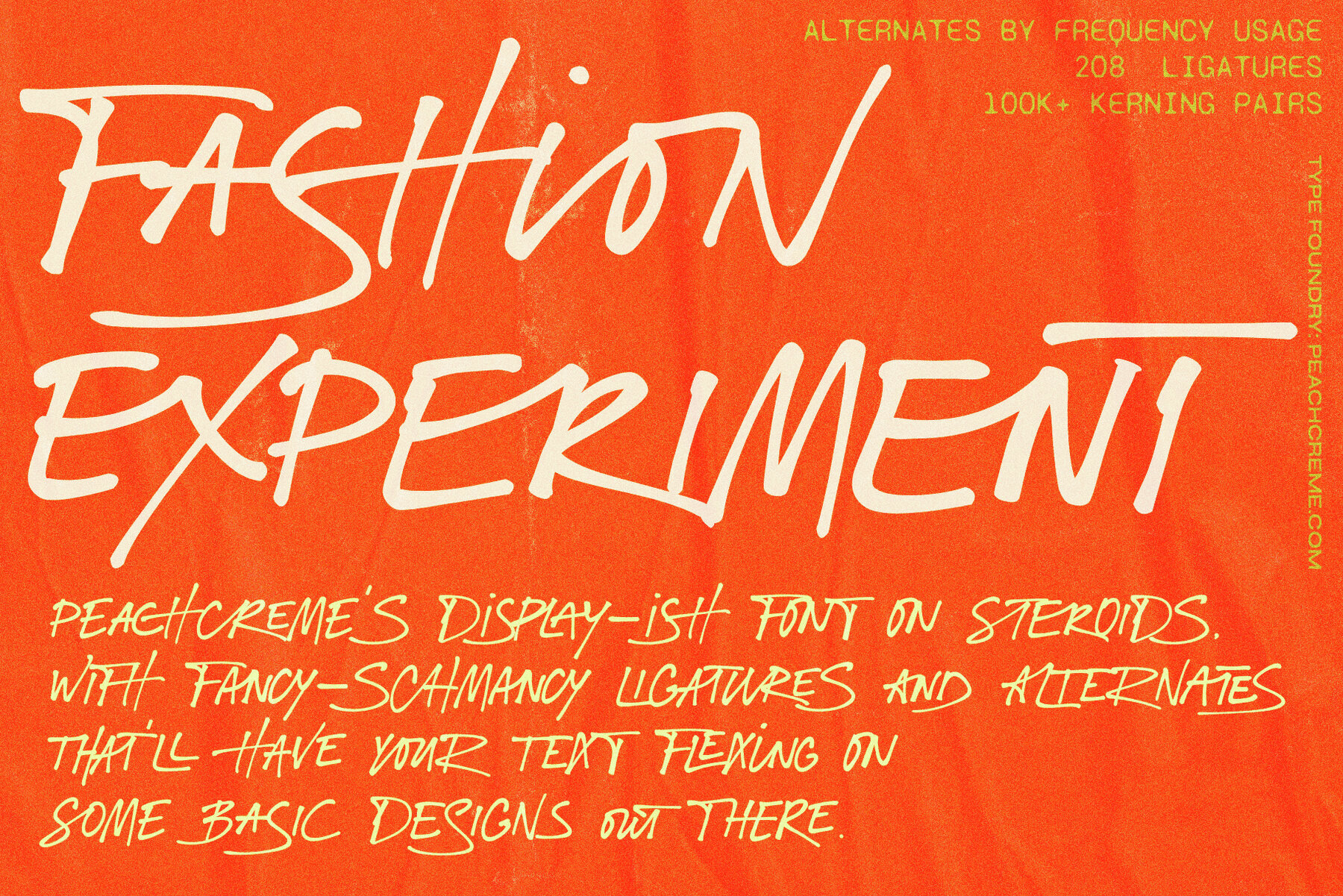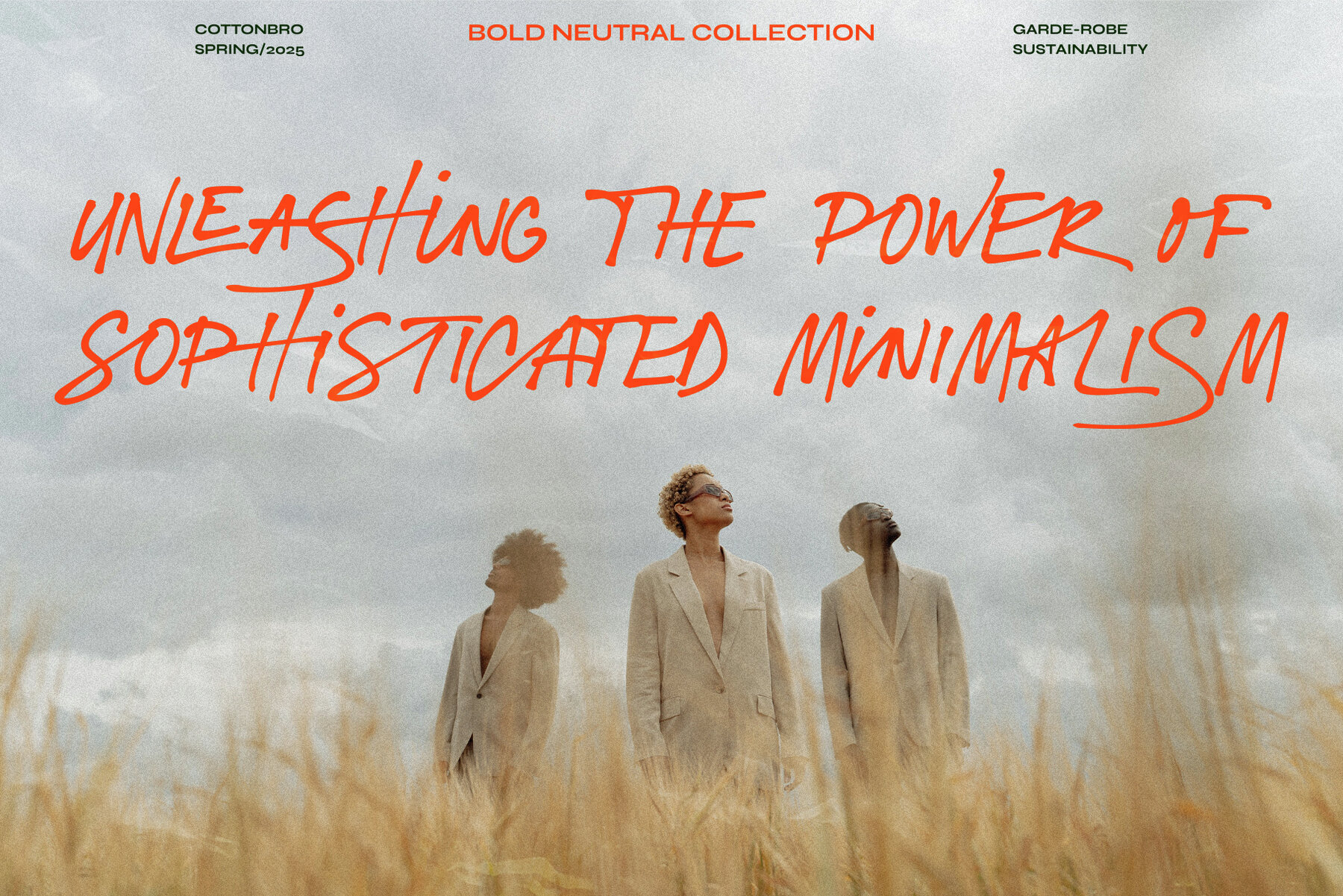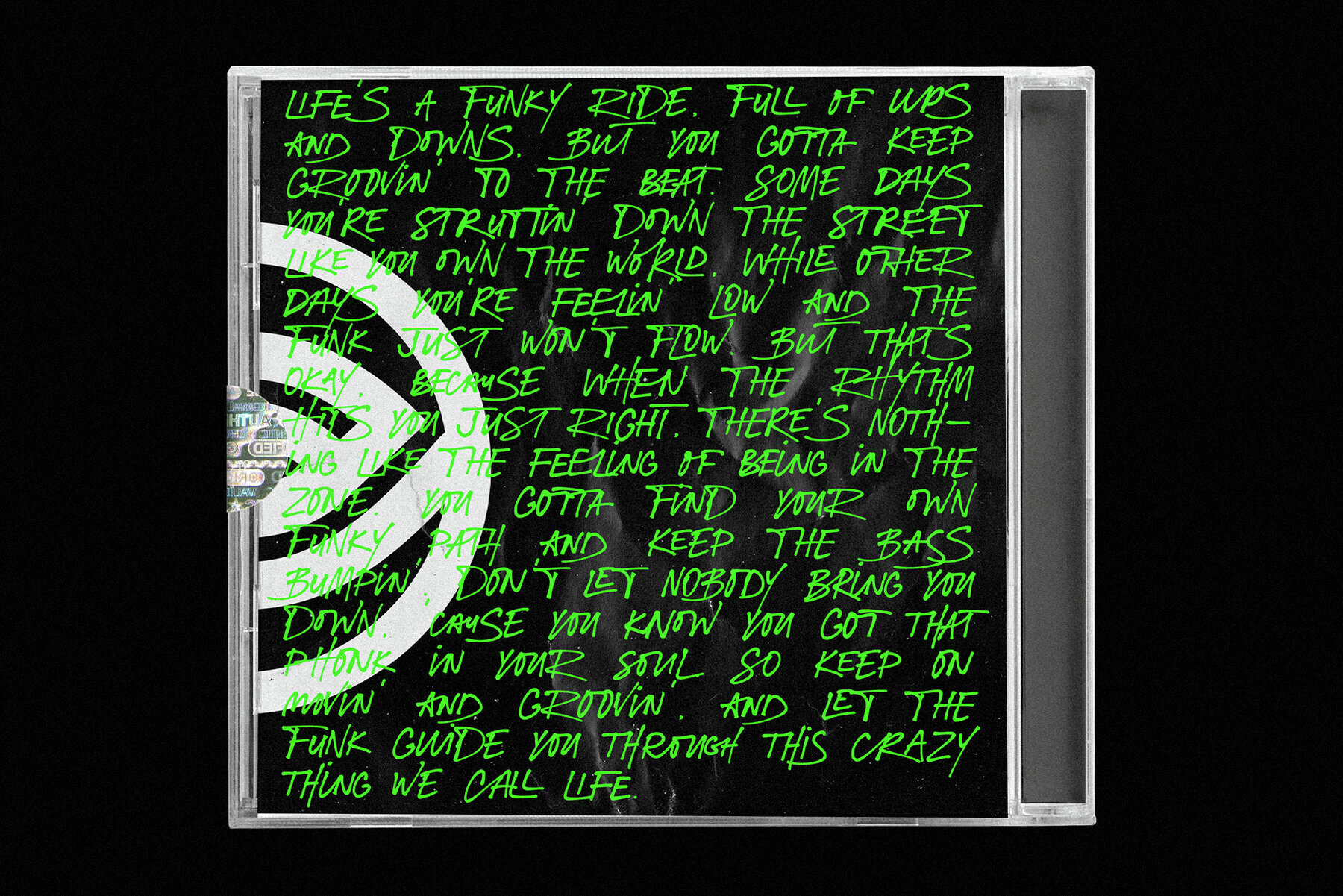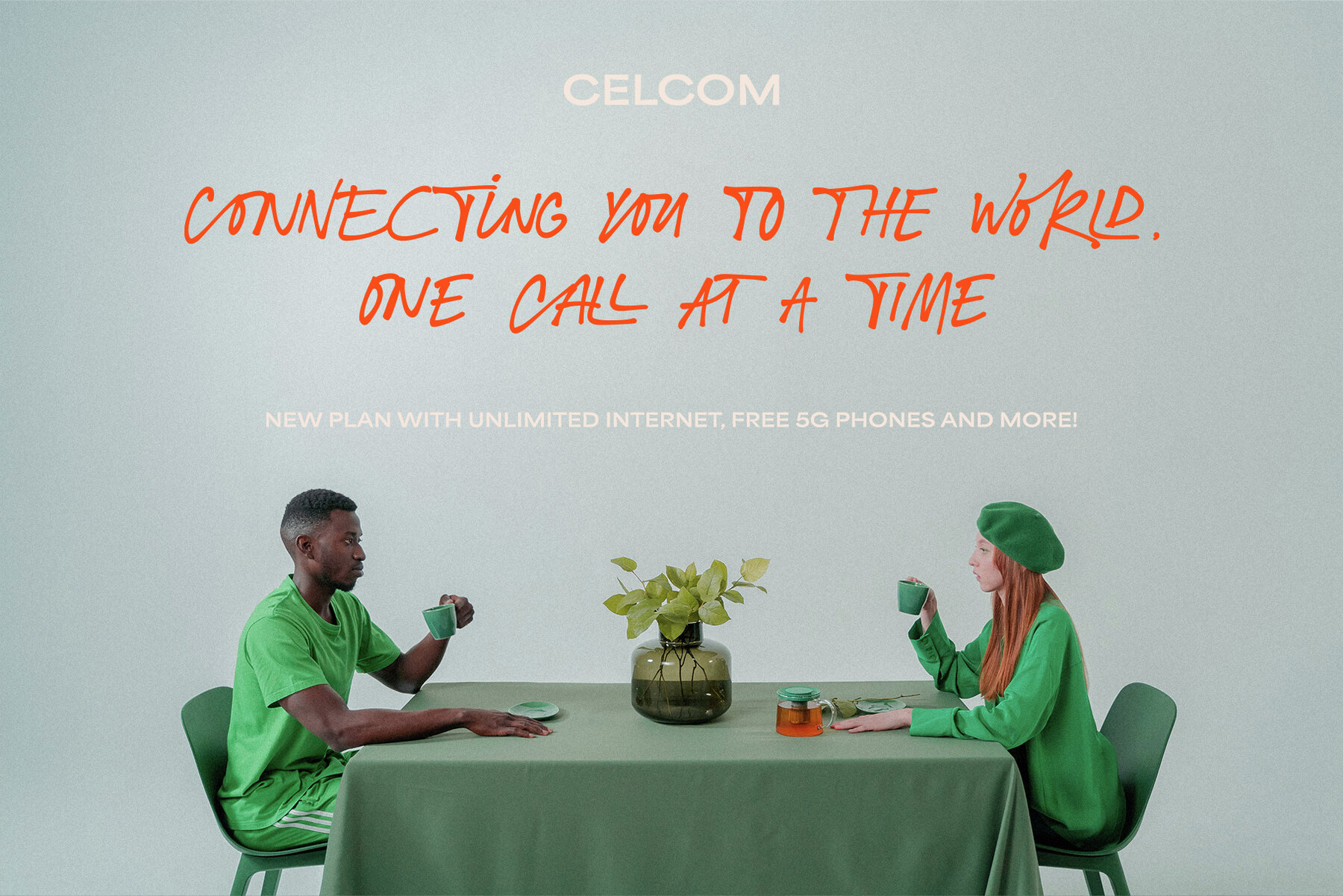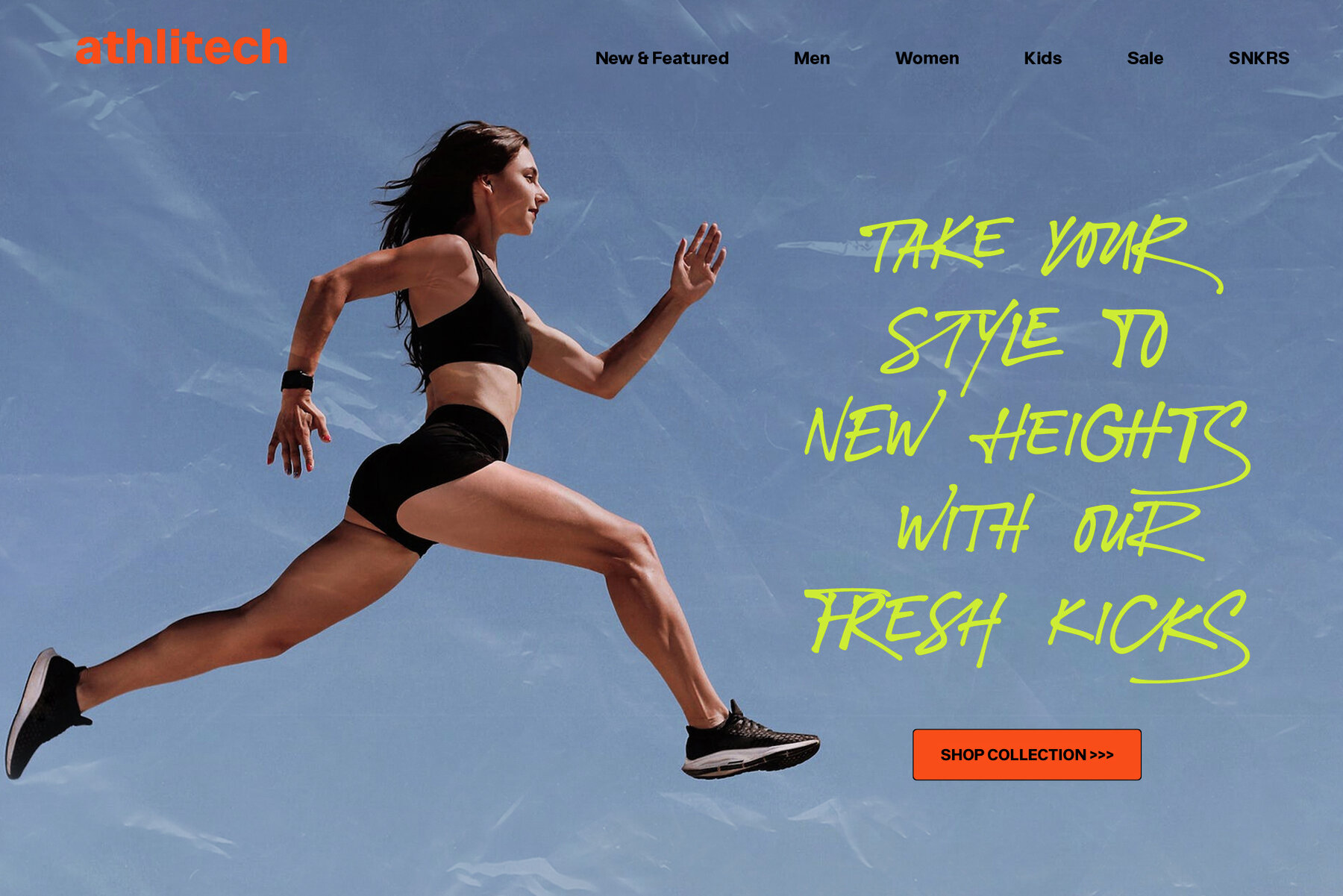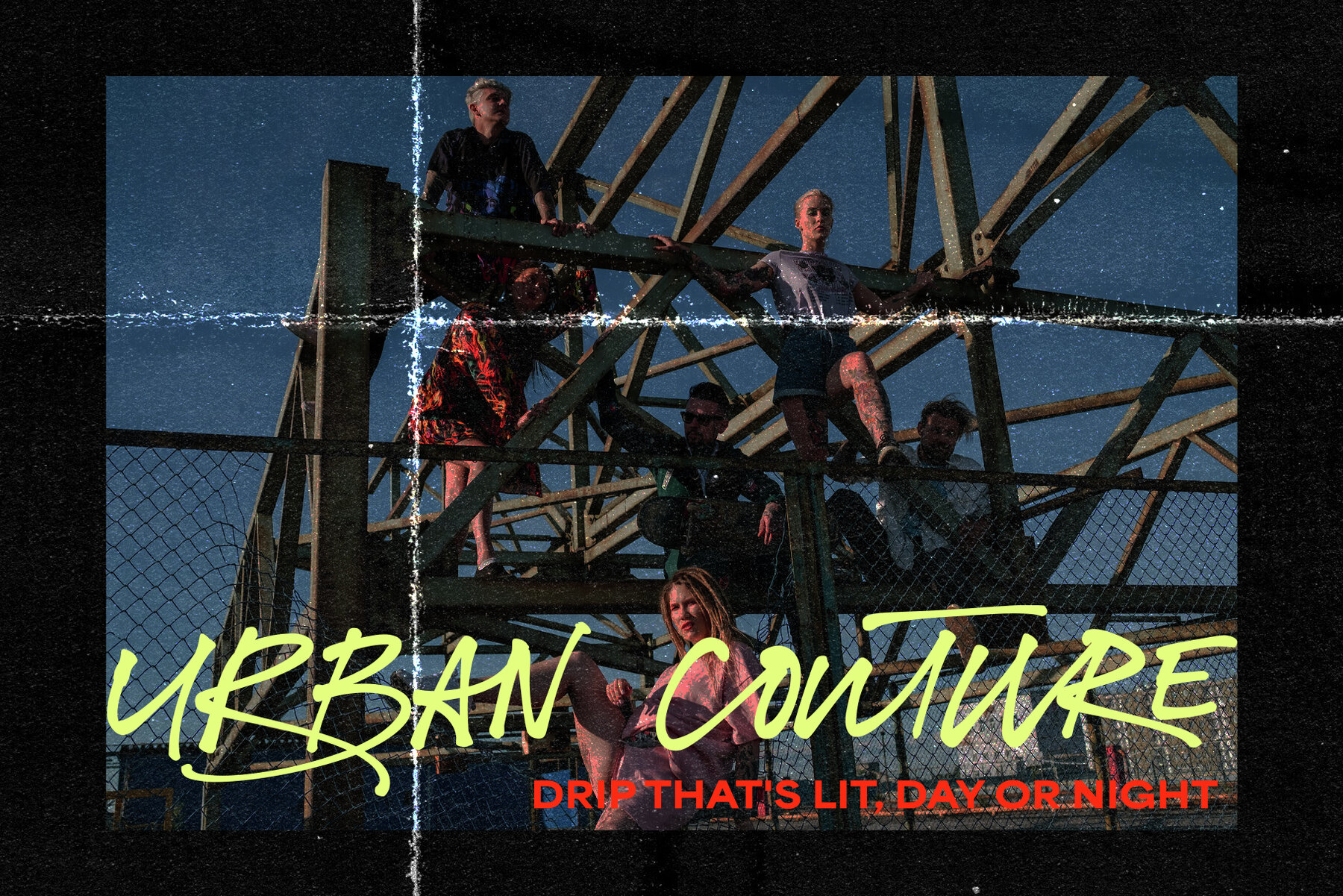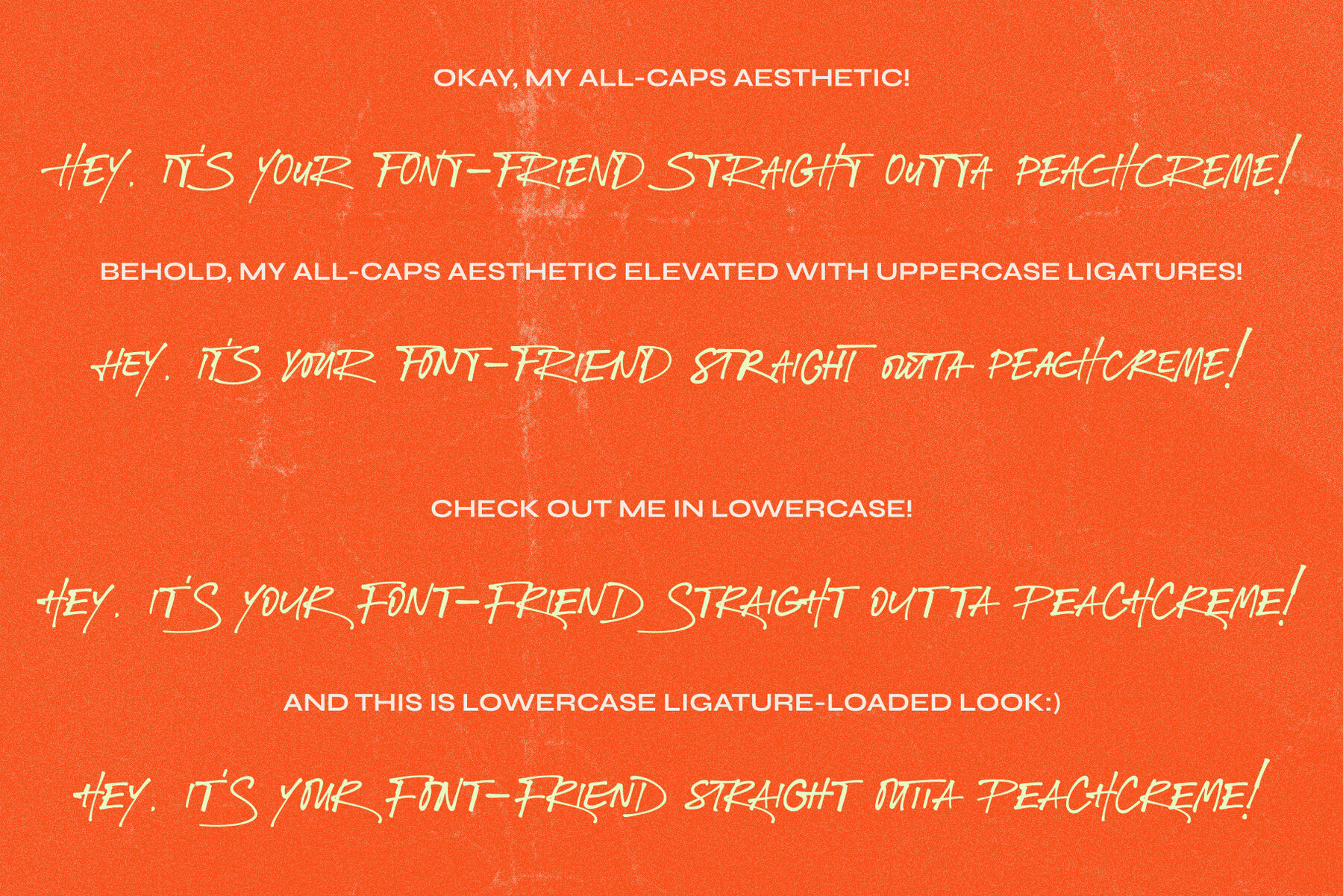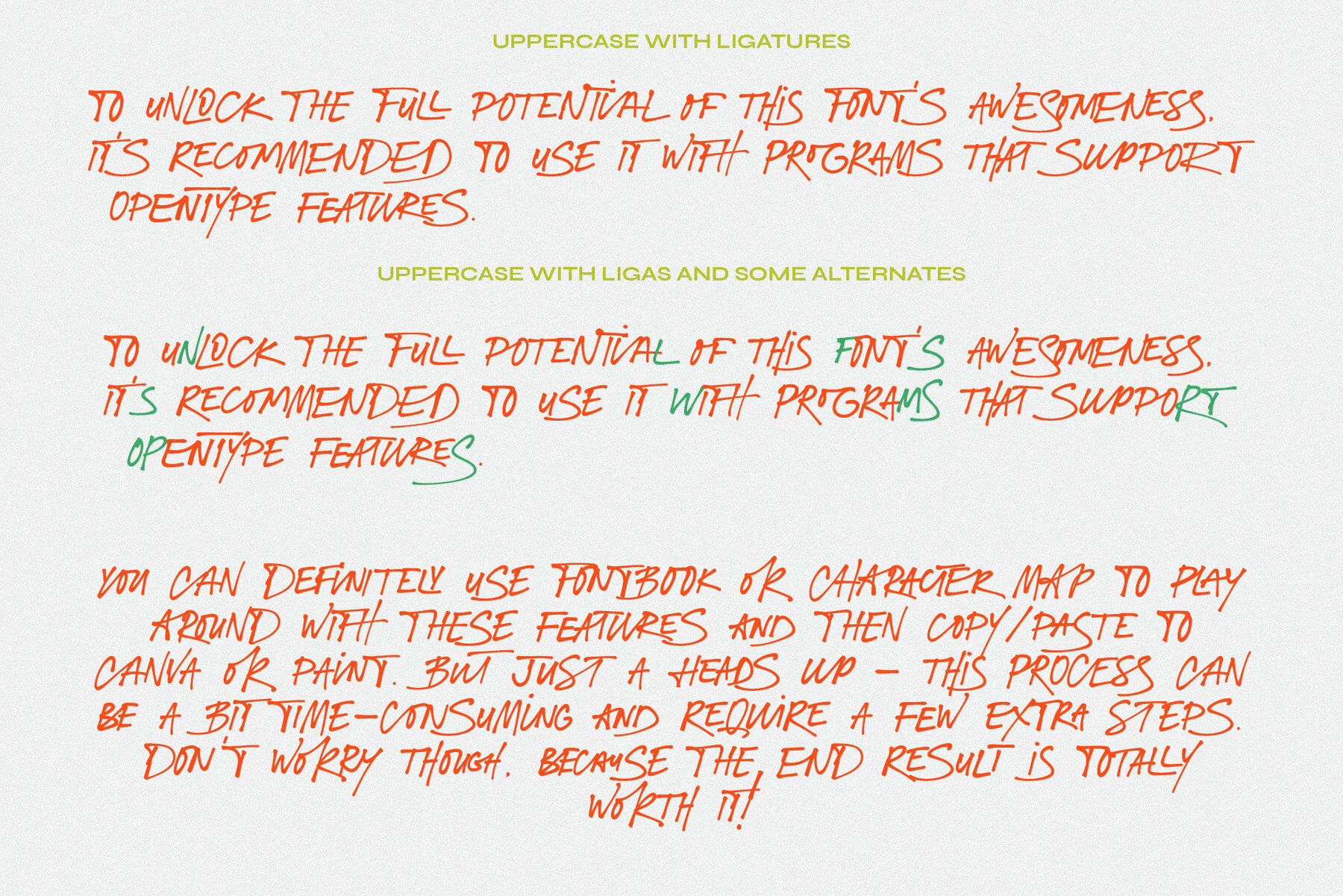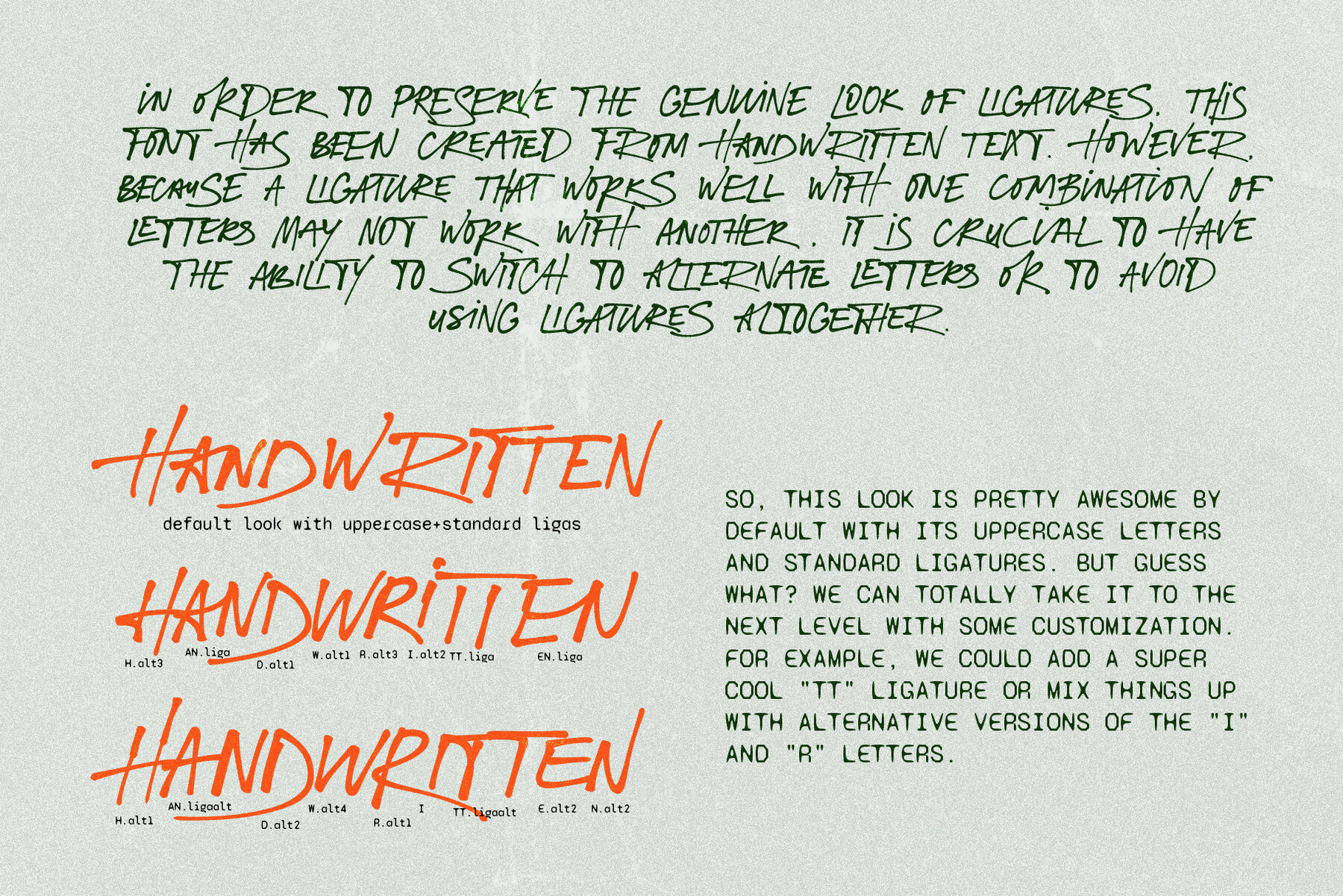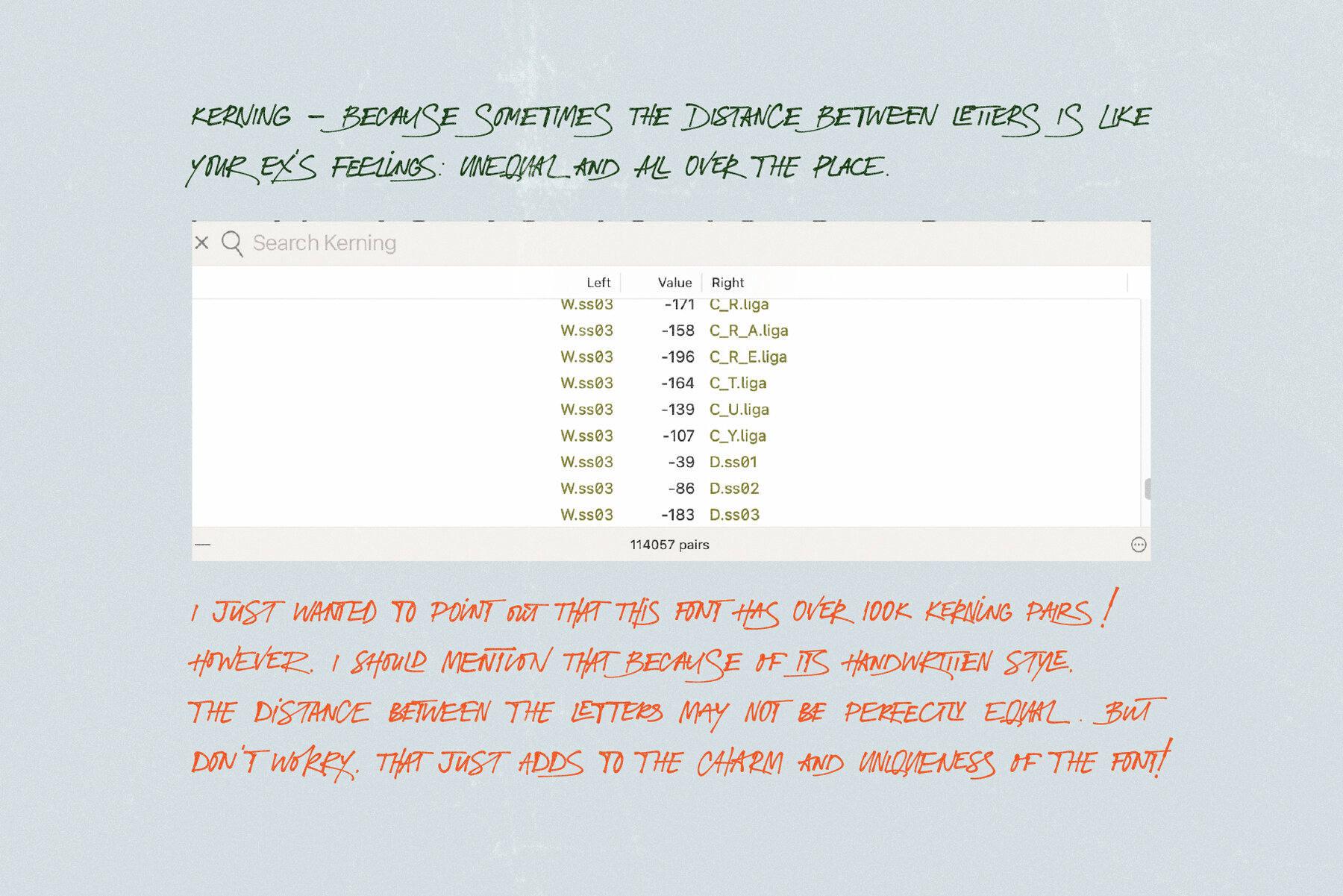
"Fashion Experiment" is an all-caps handwritten display font, featuring a funky and expressive gel pen-style that is perfect for creating impactful header text, poster designs, album covers, product designs, and merchandise. The font includes alternative letters and ligatures,which are coded for uppercase letters. The font also features more than 100k kerning pairs, ensuring optimal precision and readability. To maintain the authentic appearance of ligatures, this font was crafted from handwritten text. However, as ligatures that complement one combination of letters may not work for another, it is essential to have the option of switching to alternate letters or avoiding the use of ligatures altogether. The frequency of use for certain letters varies, resulting in some letters having more alternates than others. For example, letters such as A, E, L, M, S, and T are more commonly used than letters like X, Z, and Q, which explains the difference in alternate options. To fully access the font's features, we recommend using programs that support OpenType features. This will allow you to access glyphs directly on the same panel without copy/pasting each glyph. Additionally, the OpenType panel allows you to turn on standard ligatures, which can automatically change letters for available ligatures. Even if you are using a program that does not support OpenType, you can still access the alternates and ligatures of this font through Fontbook or Character Map, as the glyphs are PUA-encoded. However, please note that you will have to copy and paste each ligature or alternate individually, which can be time-consuming and require extra effort.